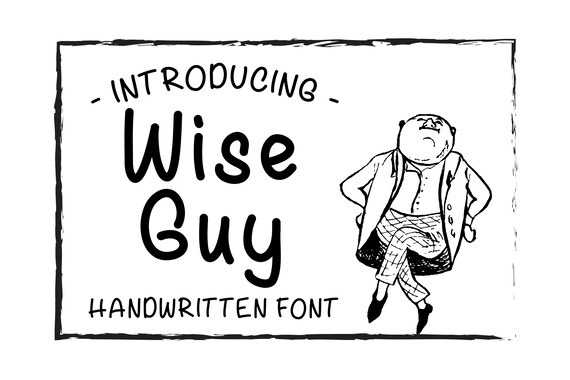
Wise Guy is a handwritten sans-serif font. It is perfect for logos, headlines, and advertising. This font features A-Z, a-z, 0-9, and basic extra characters.
Great for: wall decorations, nursery, graphic design, events, promotions, invitations, banners, stickers, cards, flyers, magnets, books, e-books, magazines, posters, package design, programs, business cards, postcards, brochures, logos, branding, advertising, media, social media, e-mail design, web design, ux design, accessories, home décor & much more!